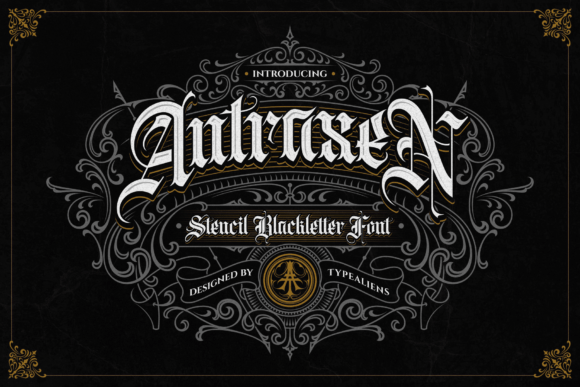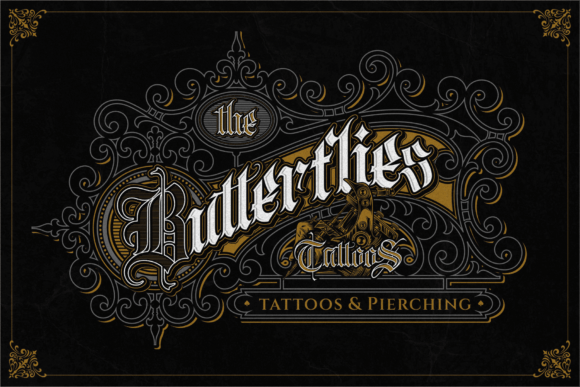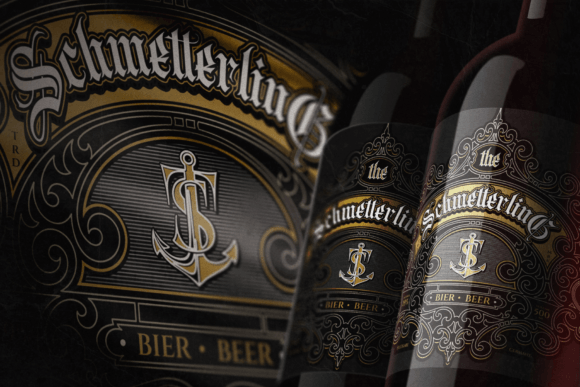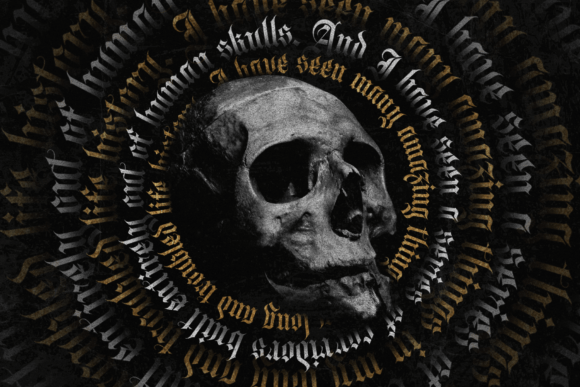
Antraxen Font: Vintage Blackletter for Bold Logo Design & Tattoo Art
About the Antraxen Font
Step up your design game with Antraxen Font, a font that exudes confidence and style. Antraxen is a Blackletter vintage font that still has the original feel with a little extra as if it were a stencil. Antraxen font is very suitable for brands that need a classic and gothic style, as for liquor brands, logos, and label designs. Besides that, this font is also synonymous with tattoos, tattoo studio logos, and the tattoo design itself.
Antraxen’s strong, bold personality makes it ideal for headlines, short impactful statements, and branding applications where a vintage, gothic aesthetic is desired. It excels in logo design, especially for brands in the alcohol, tattoo, or motorcycle industries. However, its highly stylized forms make it unsuitable for body text or long passages; readability suffers significantly at smaller sizes.
Consider pairing Antraxen with a clean sans-serif like Montserrat for a balanced contrast, or a more delicate serif font such as Playfair Display for a sophisticated, vintage-inspired combination. For a more rebellious feel, a geometric sans-serif like Futura could be used. Avoid pairing it with other highly decorative fonts, as this will create visual clutter.
The font’s rebellious yet classic nature lends itself well to projects requiring a strong visual identity that evokes a sense of history and boldness. It communicates strength and tradition, but also a touch of edginess.
Antraxen Font Usage Examples
Antraxen Font Example